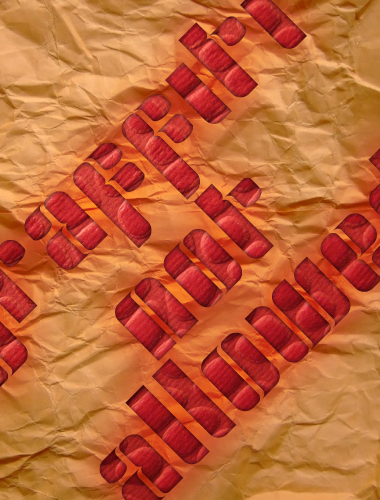
Very intelligent solution for stencils. Love the 's' (:
Hopefully 'Intime' - nice one. 10/10
Lovley
I'm with the people. Great intuition and great results with it too, IMHO. 10/10 4U. (Wow, what a high level in this challenge!).